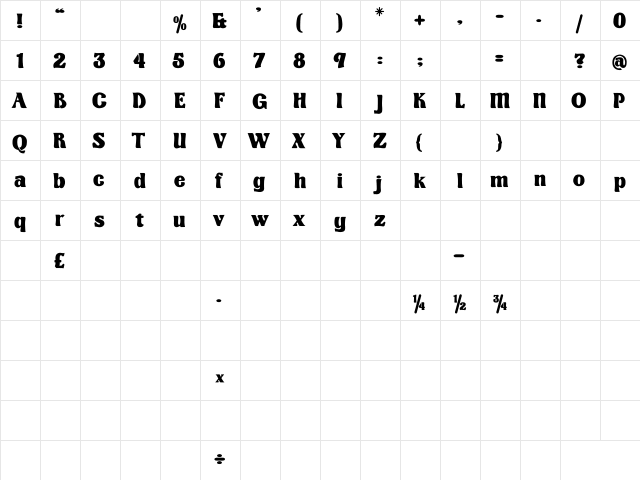
Kingthings Organica Extra Bold Font Preview
Kingthings Organica Extra Bold
Kingthings Organica Extra Bold Font Details
| Style | Extra Bold |
| Designer | Kevin King, Exeter 2002 |
Design Context for Kingthings Organica Typeface
Kingthings Organica offers clean, dependable letterforms without strong stylistic allegiance, making it a practical choice for designers who need flexibility. The heavy weight commands attention and anchors typographic hierarchies.